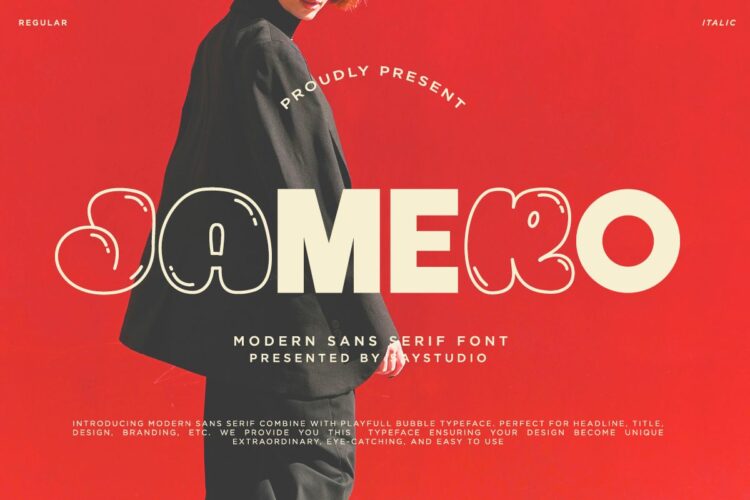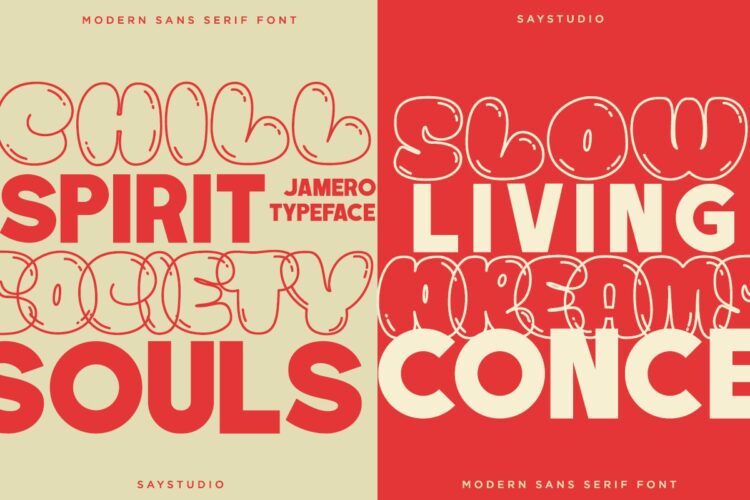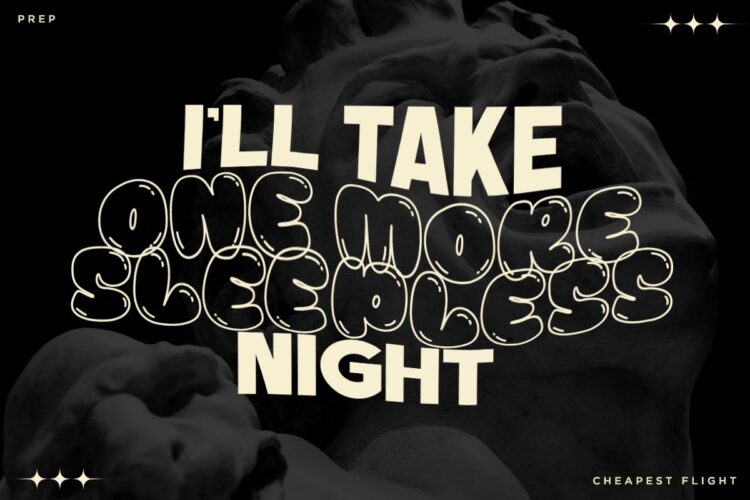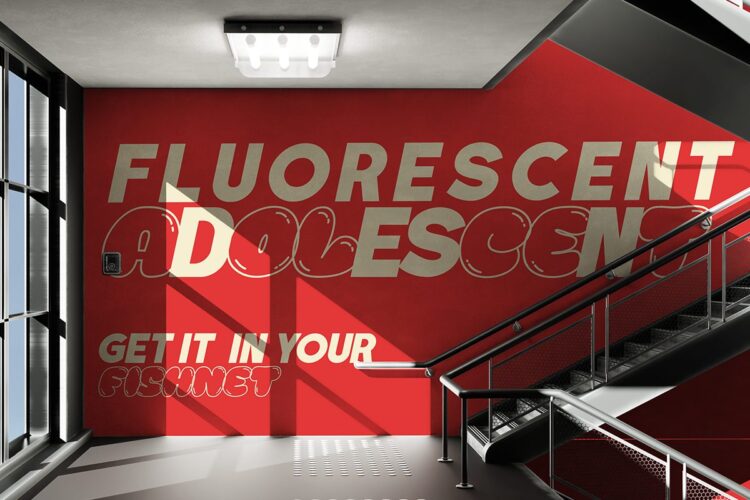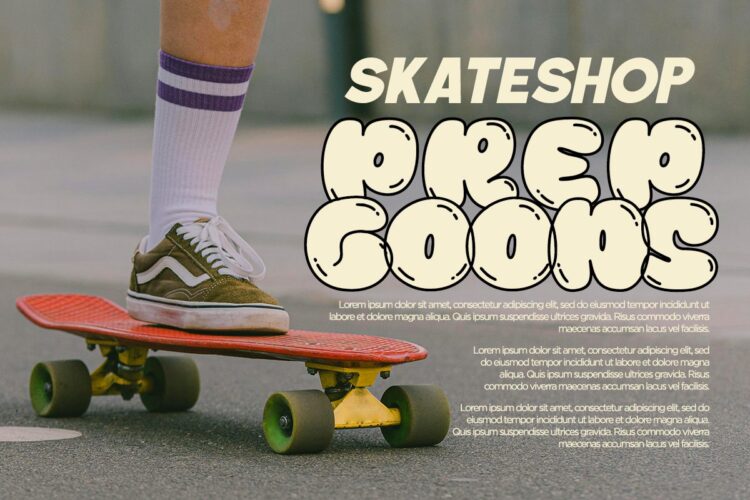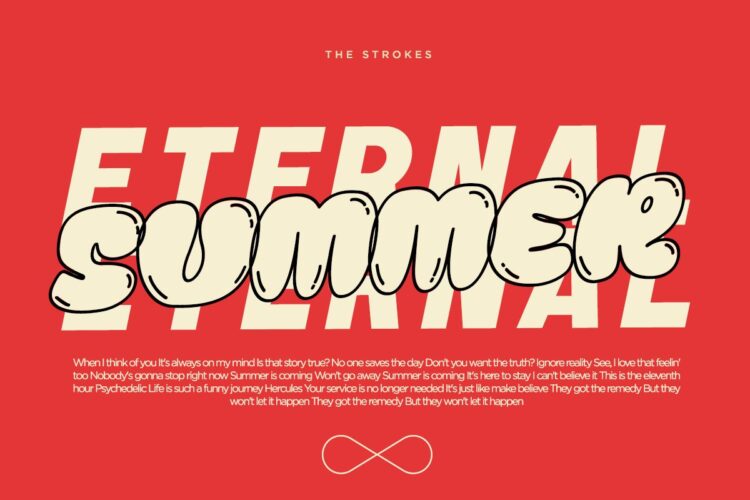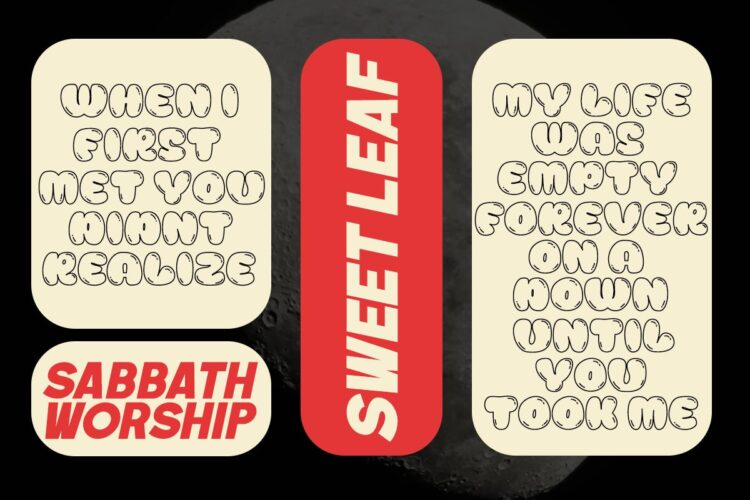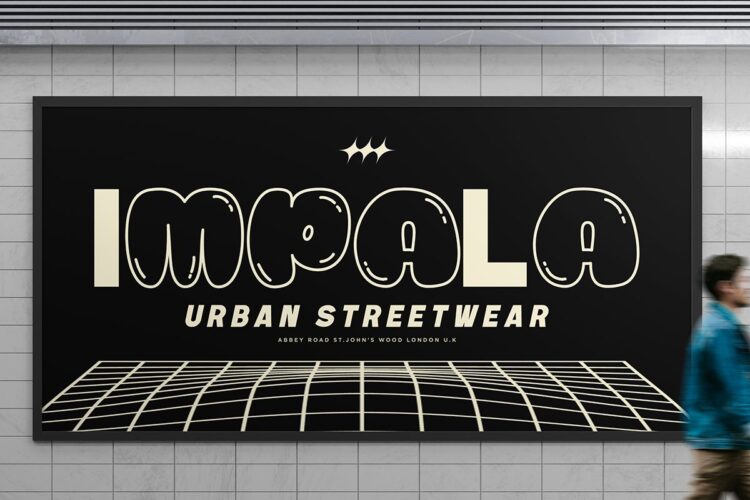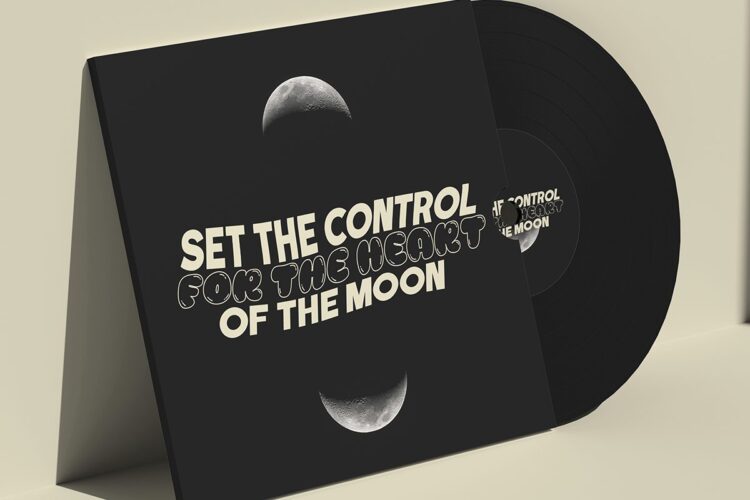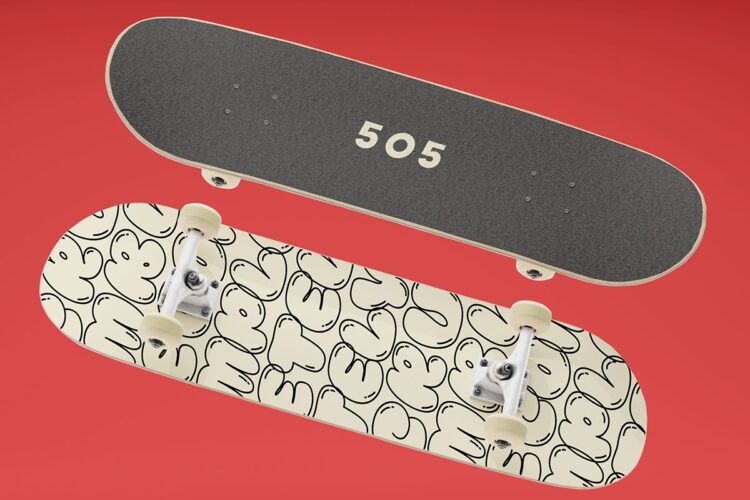
Jamero
Introducing Jamero, a modern display font blending modern sans serif and bubble groovy typeface. Perfect for headlines and titles, children’s invitations, birthday party posters, toy branding, playful packaging, and any design needing a touch of joy. it infuses any project with a vibrant bubble and modern theme, ensuring your designs stand out with a unique, eye-catching style. This nostalgic yet modern font is versatile for various creative applications.
Jamero – Modern Sans Serif Font